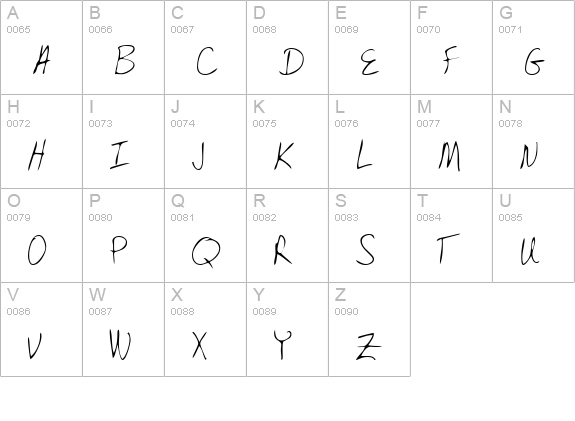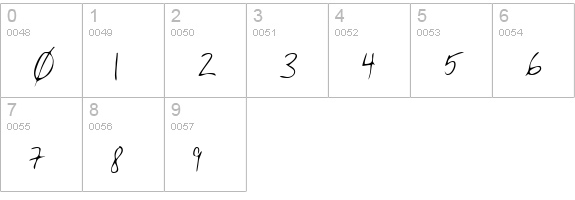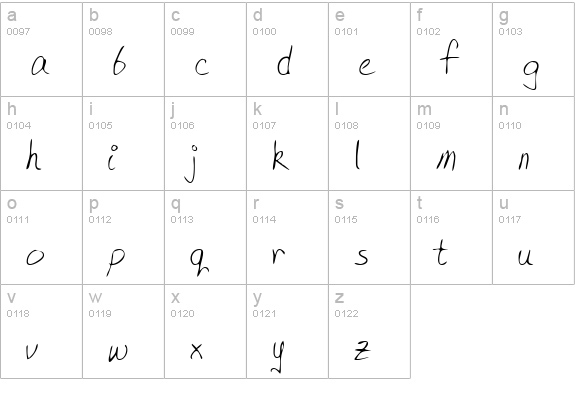
KitsHand Regular Font Details
KitsHand Regular is the standard, neutral variant in the KitsHand typeface family \xE2\x80\x94 well suited to general body text, paragraphs, and standard typographic work.
KitsHand Regular font is a delightful and charming typeface that adds a touch of whimsy and playfulness to any design project. With its smooth curves and unique letterforms, this font is perfect for adding a handwritten feel to your designs. This font exudes a sense of freedom and creativity, making it ideal for a variety of projects such as greeting cards, invitations, posters, logos, and more. Its versatility allows it to be used in both digital and print media, ensuring that your designs will stand out from the crowd. The best part? KitsHand Regular font is available for free download at FontsMarket.com. Whether you are a professional designer or a hobbyist, this font is freely accessible to anyone looking to add a touch of personality to their creations. So why wait? Download KitsHand Regular font today and let your imagination run wild with endless possibilities.